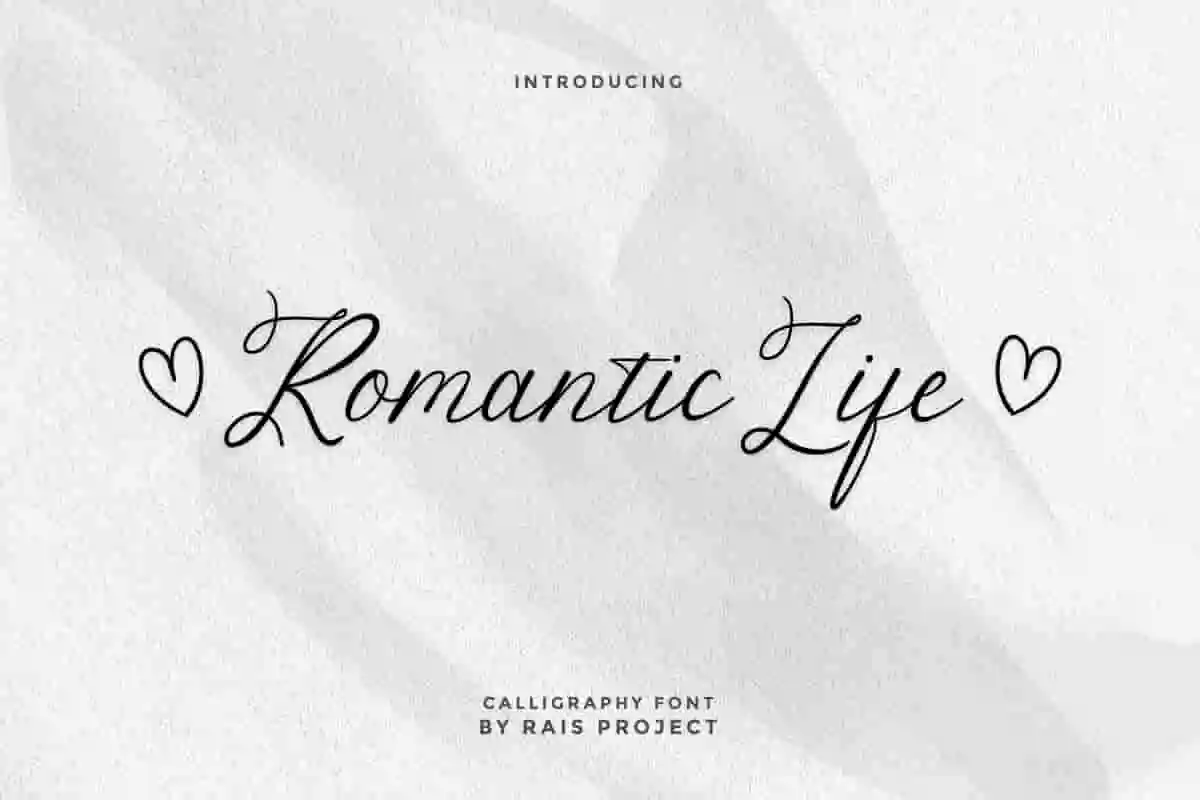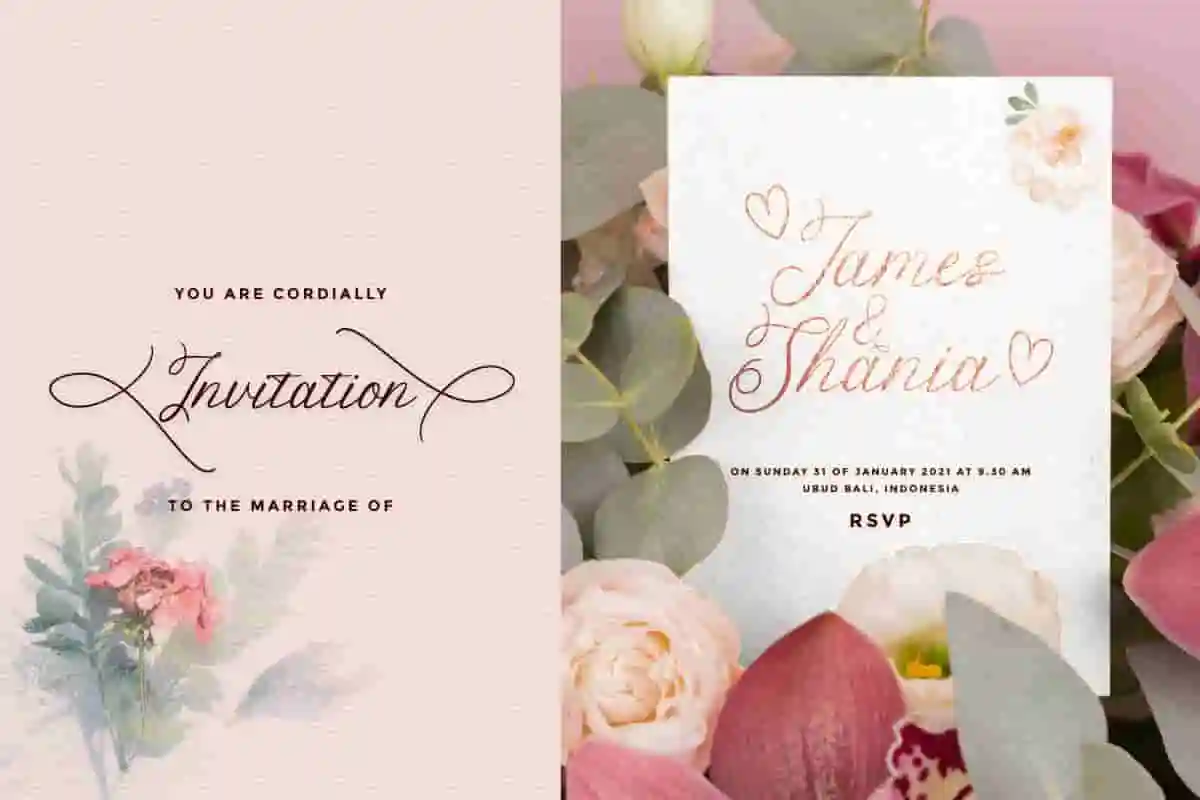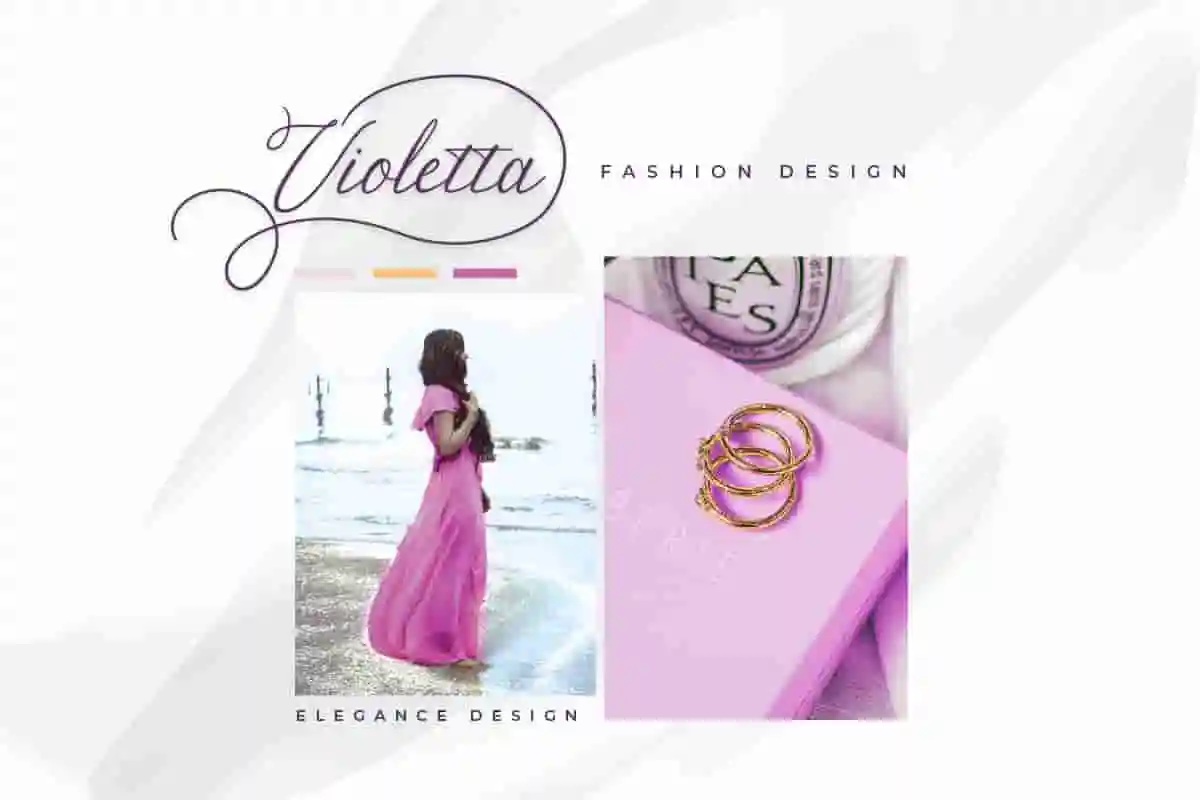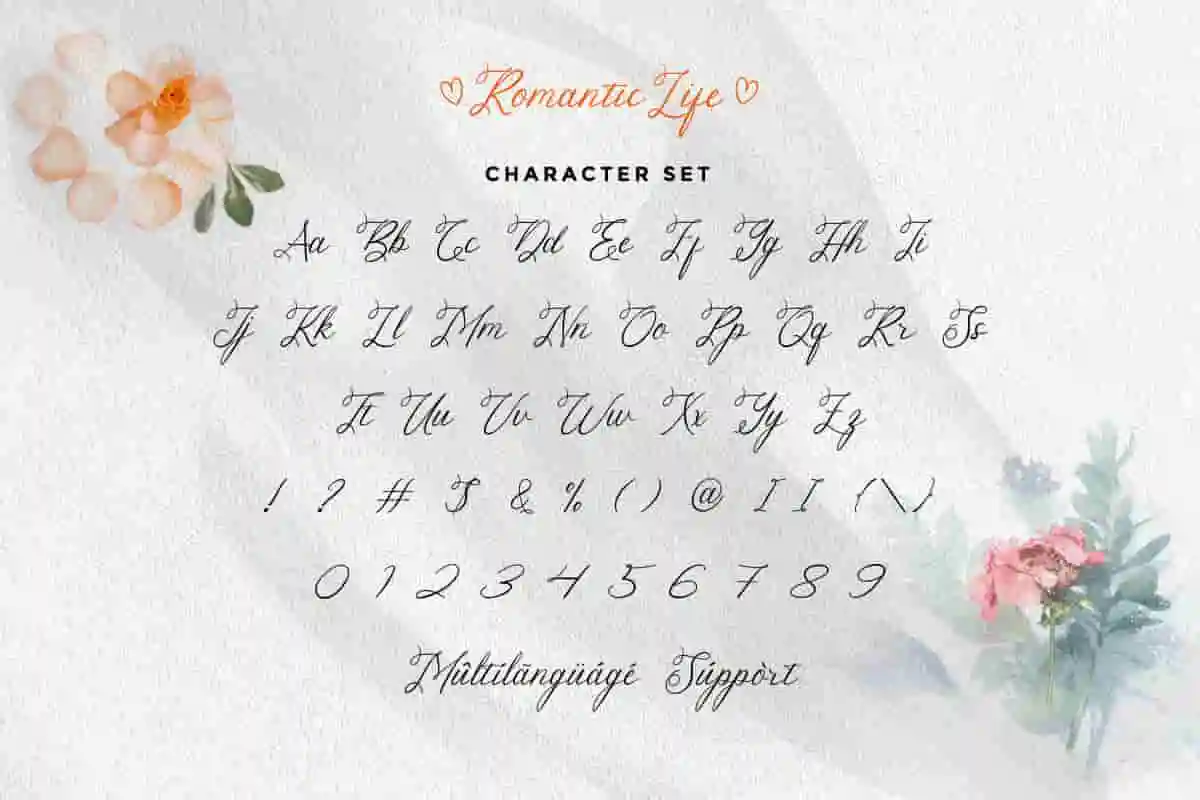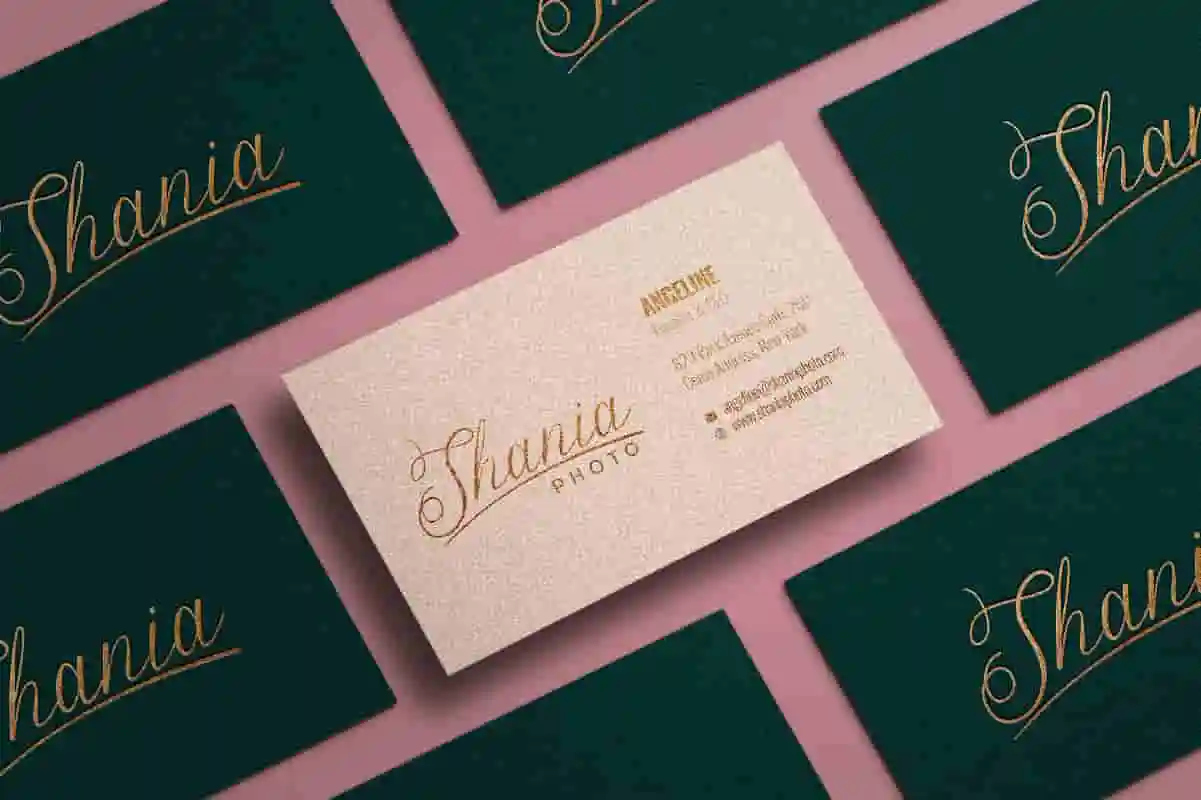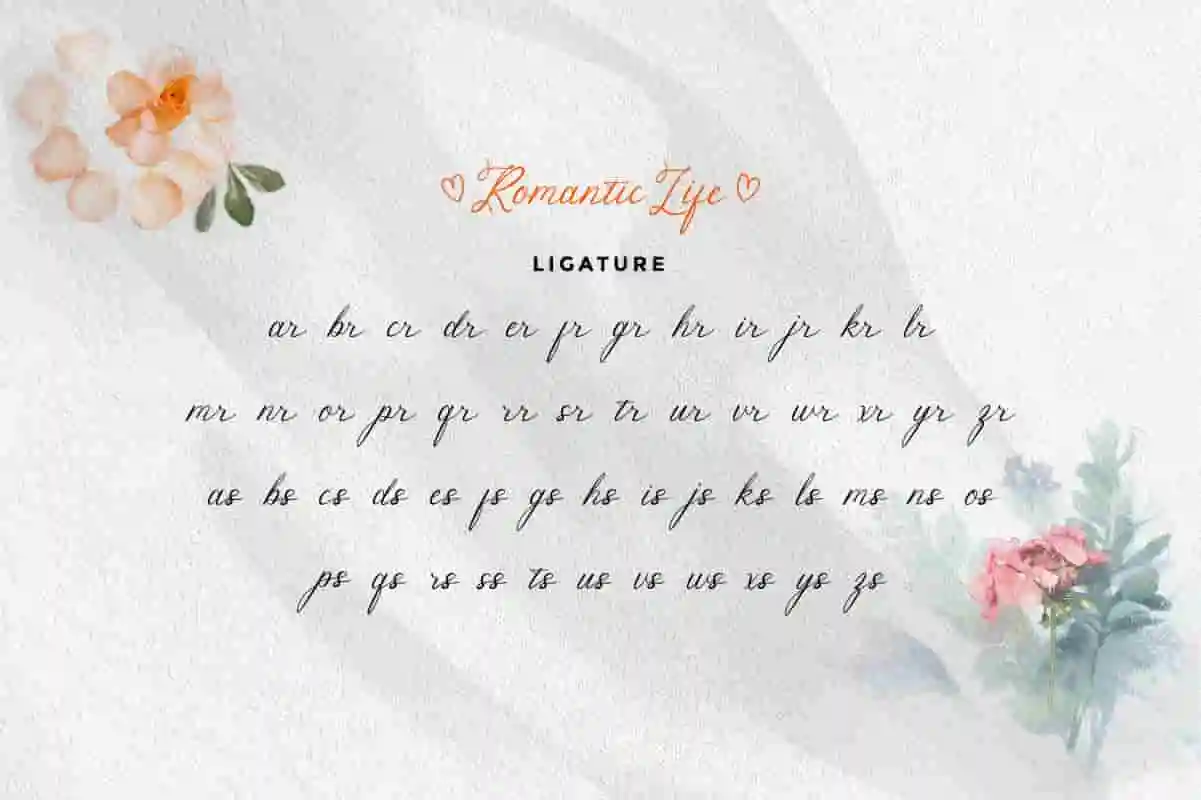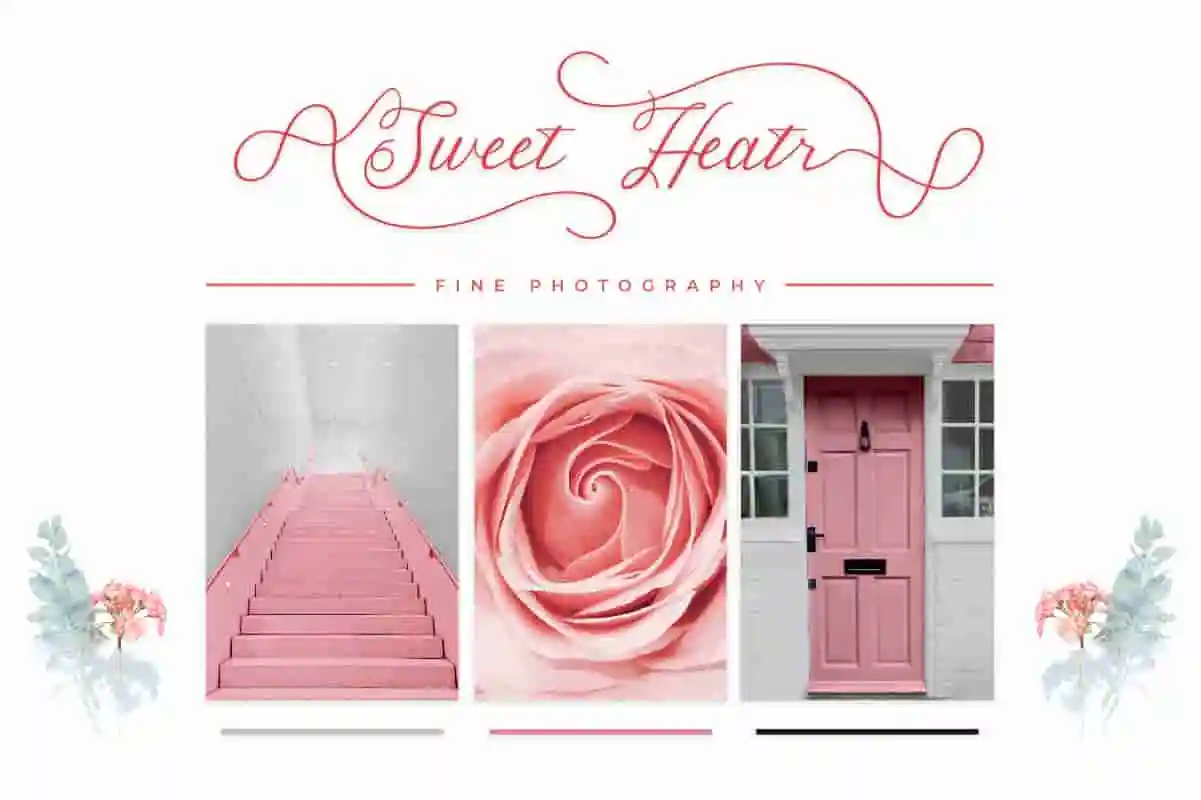
Romantic Life Handwriting Font
Romantic Life is a romantic love themed handwriting font by RaisProject. It will be great for Invitation, branding, watermark, promotion, events, advertising etc
Romantic Life Font is a classy handwriting script font with sophisticated handwriting style. You can see the demo font below. You can also input any word you want so you can see what it will look like :
The font handcrafted With simple characters, love theme for romantics project. It will be stunning for any your special projects including : games, promotion, events, branding, advertising, magazine, apps, signage, invitation, stationery, social media posts, product packaging, product designs, label, comic, watermark or and any projects that need calligraphy handwriting style. Romantic Life Handwriting Font includes full set of cool uppercase and lowercase letters, numerals, a large range of punctuation and ligatures. All letters has hand-lettered style to make it unique yet cool looking design. You will get: